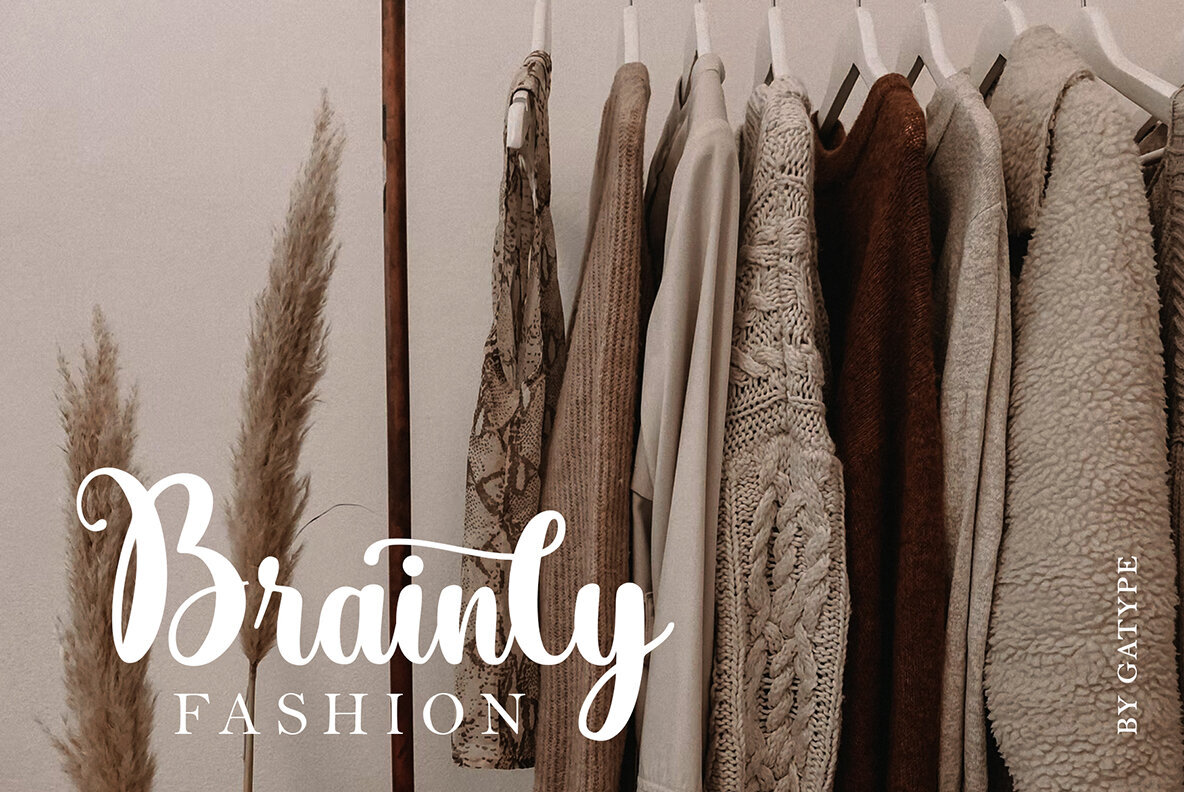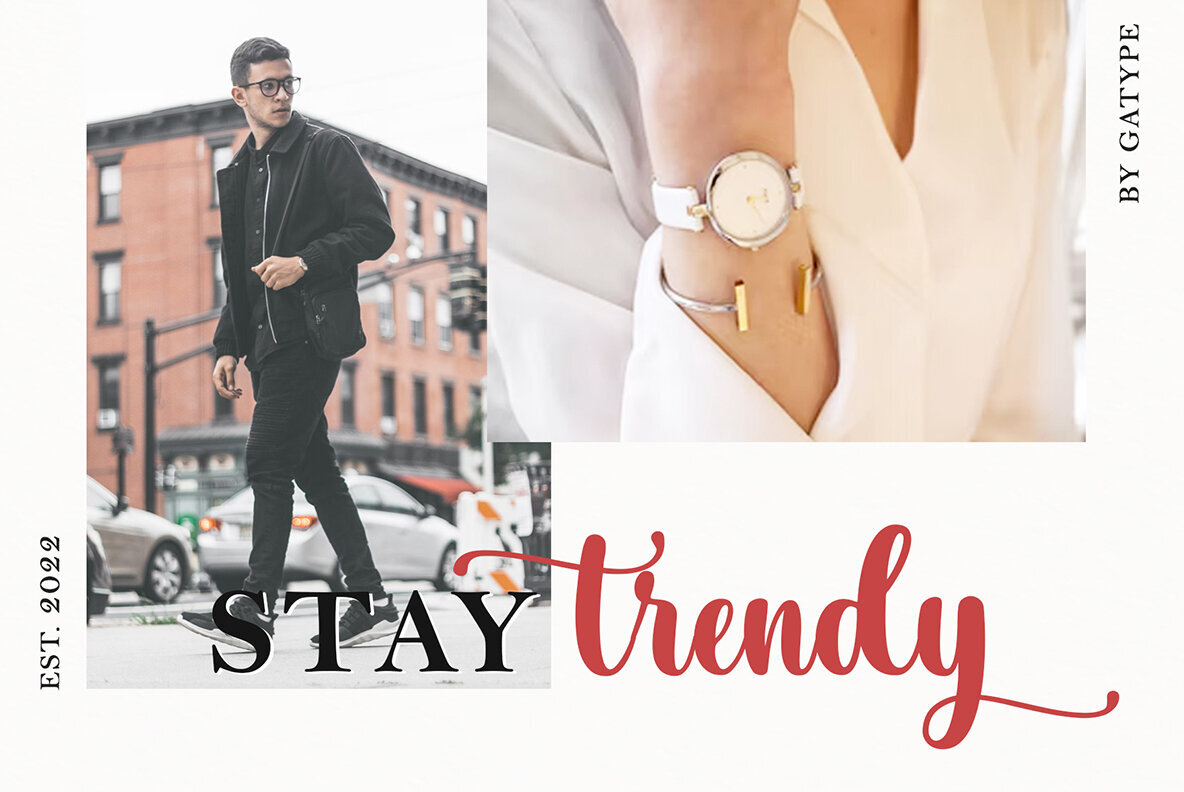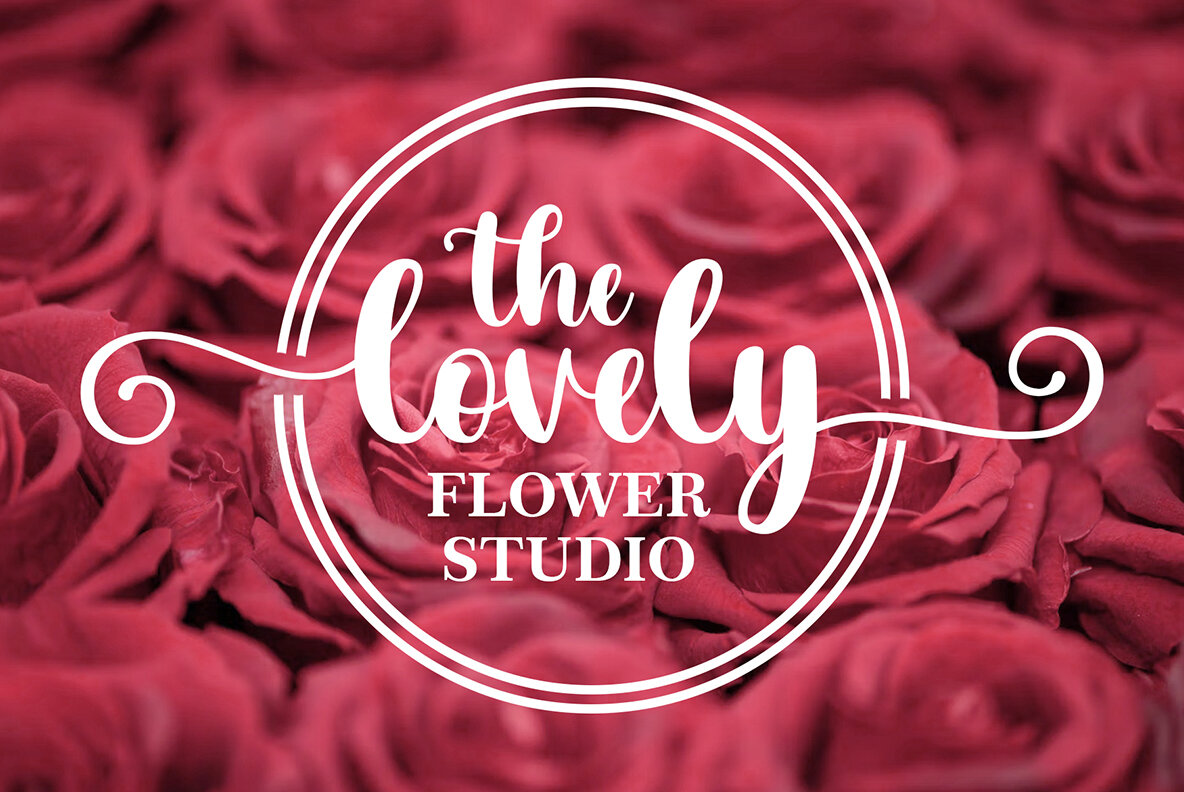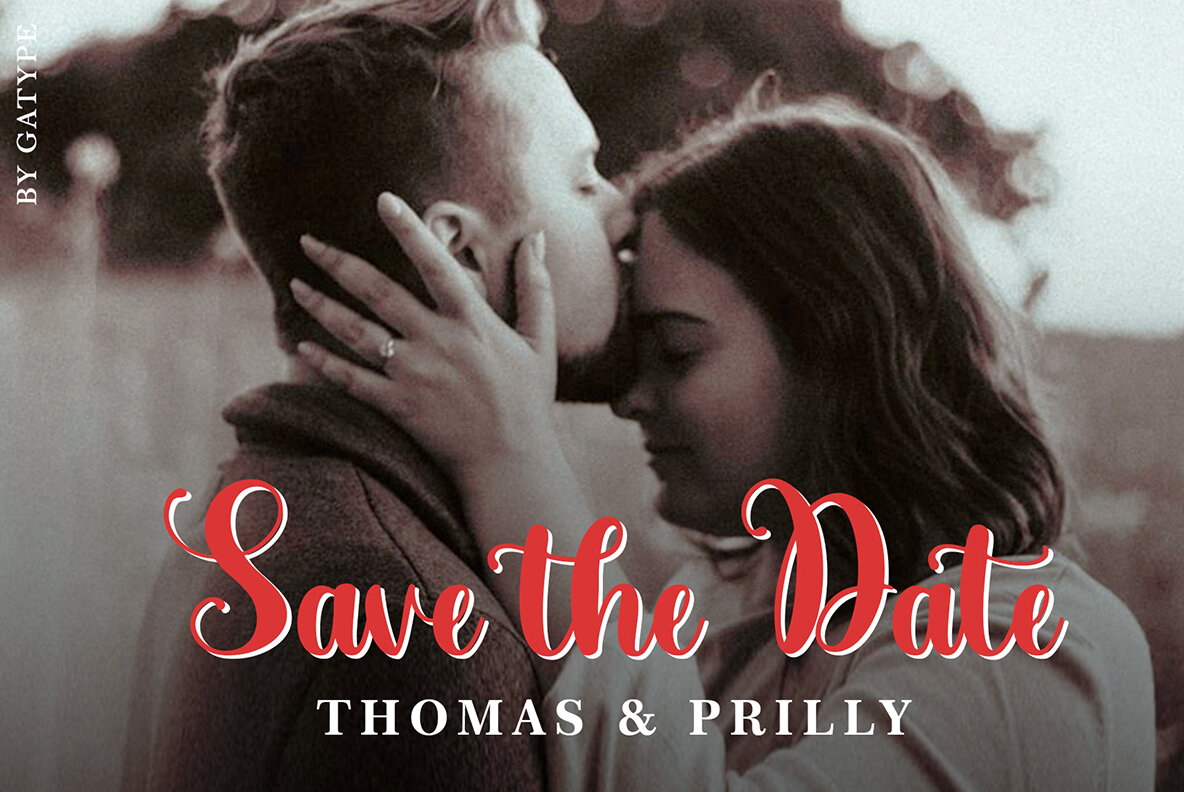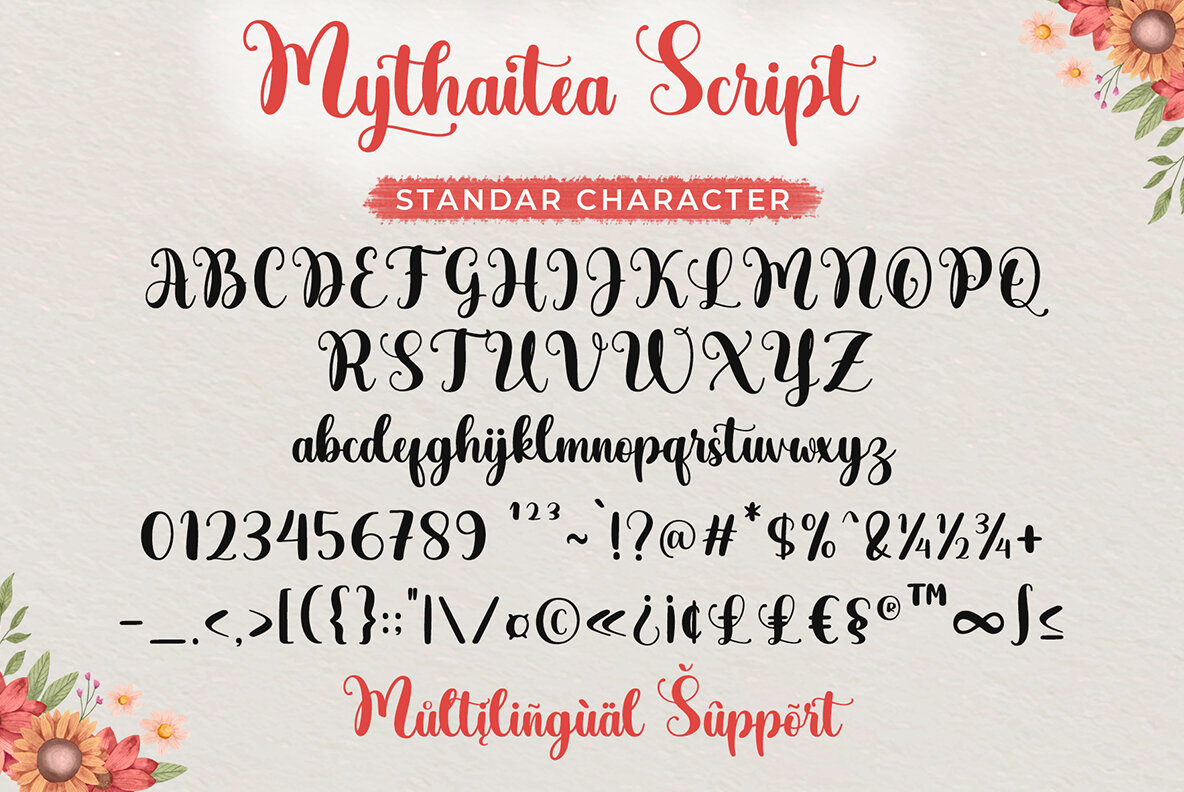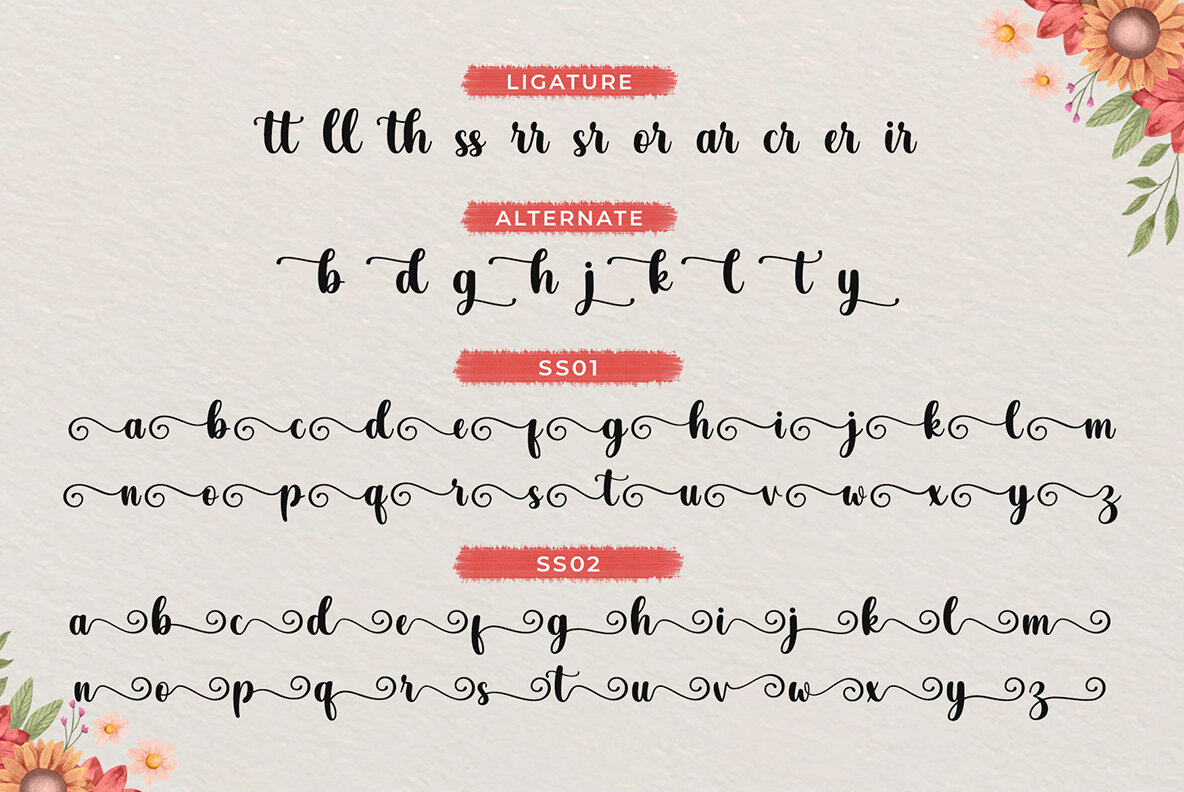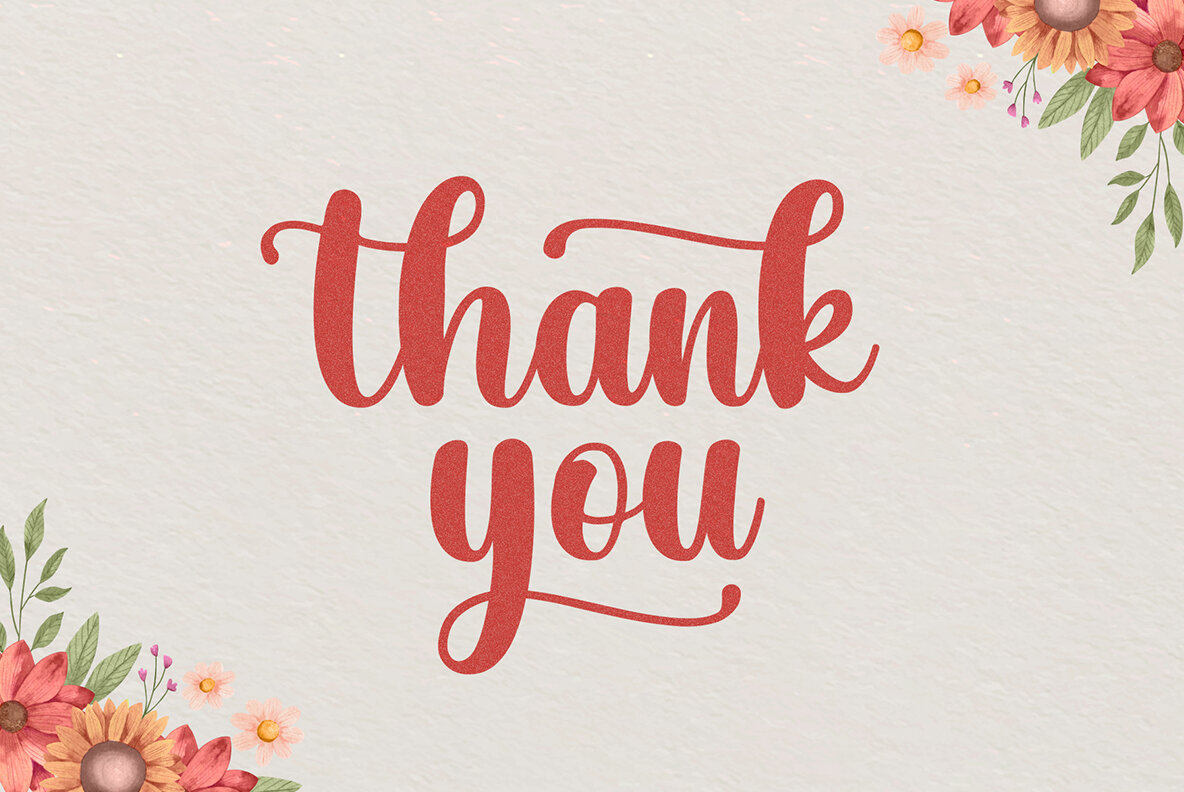
Mythaitea Font
Mythaitea Script
Mythaitea by Gatype is a modern, smooth, coarse font designed for versatility across all design needs. This font can be used in a variety of contexts, ensuring its widespread applicability in projects such as logos, product packaging, wedding invitations, branding, headlines, signage, labels, signatures, book covers, posters, quotes, and more. For users seeking to access all alternative characters, guidance is available for different platforms. Mac users can use Font Book, and Windows users can use Character Map to view and copy any additional characters into their preferred text editor or application.Mythaitea: A Versatile Script Font for Modern Designs
Features of Mythaitea Script